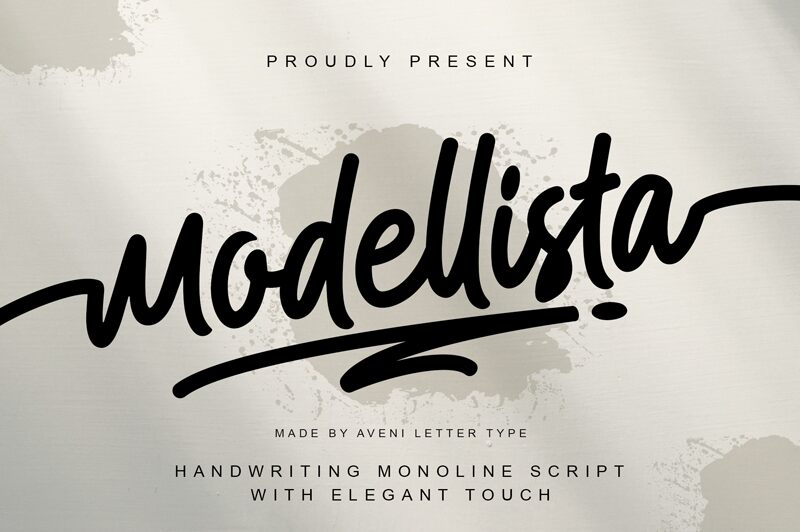
Modellista, crafted by Aveni Letter Type, is a striking handwritten font that exudes personality and flair. Its bold strokes and fluid curves create an engaging visual dance that captivates the eye. The unique character of Modellista lies in its vibrant expressiveness, making it ideal for projects seeking a touch of authenticity and creativity.
Whether used for logos, branding materials, or social media graphics, Modellista injects a sense of originality that's hard to ignore. Its lively aura combined with a human touch makes it perfect for headlines, posters, and invitations where an impactful first impression is crucial. Embodying both elegance and dynamism, Modellista promises to bring your designs to life with unparalleled charm.